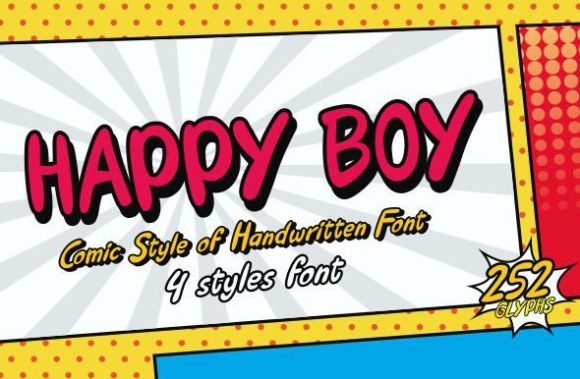
The Perfect Font to Brighten Up Your Designs
Have you ever stared at a blank canvas, struggling to bring your creative vision to life? You’ve got a great idea, but it just needs that one special something to make it truly pop. For designers, finding the right font can be the difference between a mediocre design and a masterpiece.
Enter the Happy Boy Font, a simple yet charming display font that’s sure to put a smile on your face. Its clean lines and neat lettering make it the perfect addition to any project, whether you’re designing a logo, a poster, or a social media graphic. With the Happy Boy Font, you’ll be able to add a touch of personality to your work and make it stand out from the crowd.
Happy Boy Font Key Features
- Font Family: A playful, handwritten font designed for use in various digital and print media.
- Character Count: The font includes a wide range of characters, including uppercase and lowercase letters, numbers, punctuation, and special characters.
- Unique Characteristics: The Happy Boy Font features a unique, hand-drawn style with varying line widths and irregularities, giving it a friendly and approachable feel.
Happy Boy Font Review
First off, I love the playful vibe of Happy Boy Font. The designer has done a great job of capturing the carefree spirit of childhood in a modern digital font. ✨ The rounded shapes and gentle curves evoke a sense of friendliness and approachability that’s hard to resist.
One of the standout features of Happy Boy Font is its versatility. It works beautifully for titles, headings, and even body text. The font is also highly legible, making it a great choice for a wide range of applications, from children’s books to social media graphics. ✨
- ⚠️ The font may be too cutesy for some designers, who may find it too childish or overbearing.
- ⚠️ The font’s rounded shapes can make it difficult to read in certain contexts, particularly in small sizes or when used for large blocks of text.
Overall, I think Happy Boy Font is a great addition to any designer’s toolkit. While it may not be the right choice for every project, it’s definitely worth considering for anything that needs a playful, approachable vibe. With its versatility and high legibility, I think it’s a great choice for designers of all levels.
Getting the Most Out of Happy Boy Font
To get the most out of Happy Boy Font, use it for:
- Children’s products or branding.
- Food or restaurant branding.
- Playful or fun designs.
Remember to use the font consistently throughout your design to create a cohesive look.